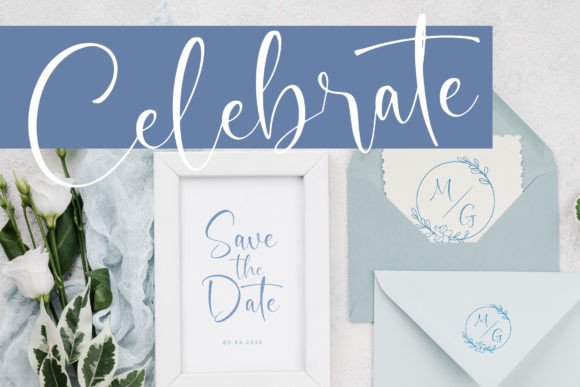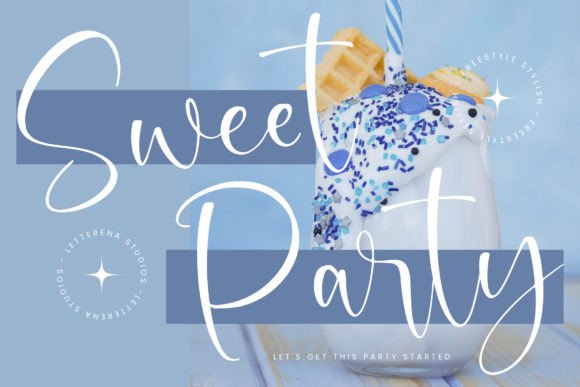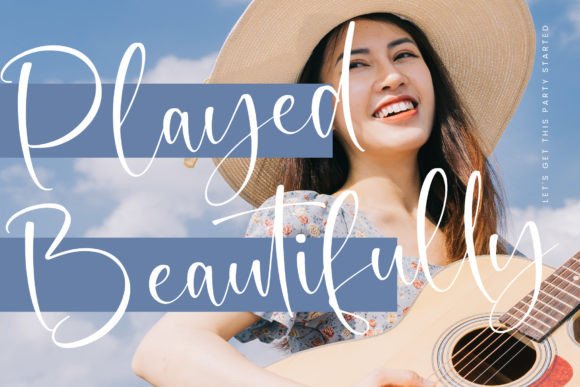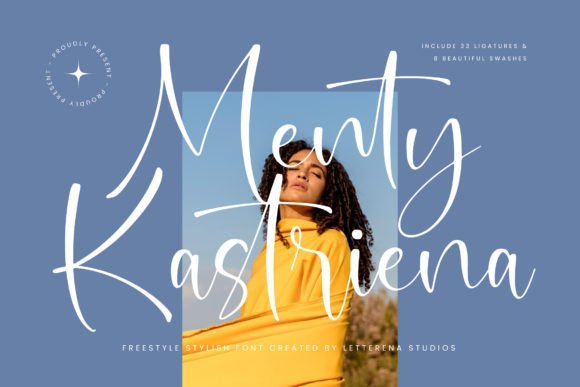
Introduction to Menty Kastriena Font
Menty Kastriena – Freestyle Stylish Font , from Letterena, is a Luxury Script font, suitable for any projects such as: logos, branding projects, homeware designs, product packaging, mugs, quotes, posters, shopping bags, t-shirts, book covers, name card, invitation cards, greeting cards, label, photography, watermark, special events, and all your other luxury and beautiful projects that need a Luxury Script taste.
Key Features of Menty Kastriena Font
Why Choose Menty Kastriena Font?
Menty Kastriena Font offers exceptional quality and versatility, making it a valuable addition to your design toolkit. Whether you’re creating for personal projects or commercial use, Menty Kastriena Font delivers professional results.